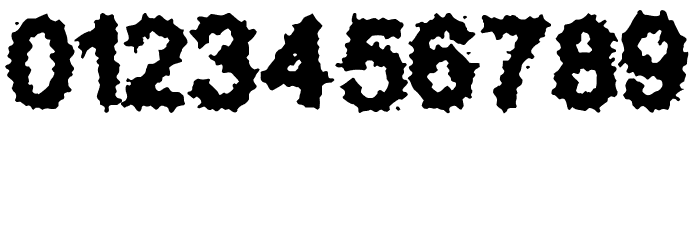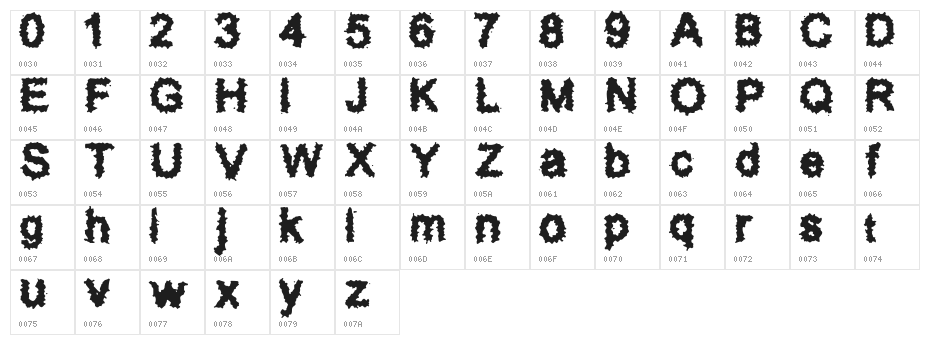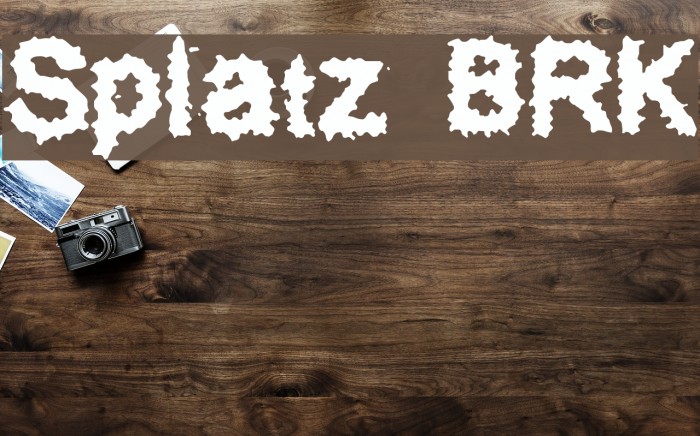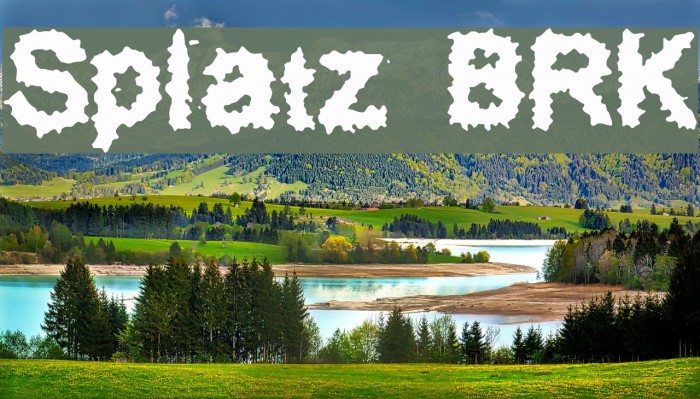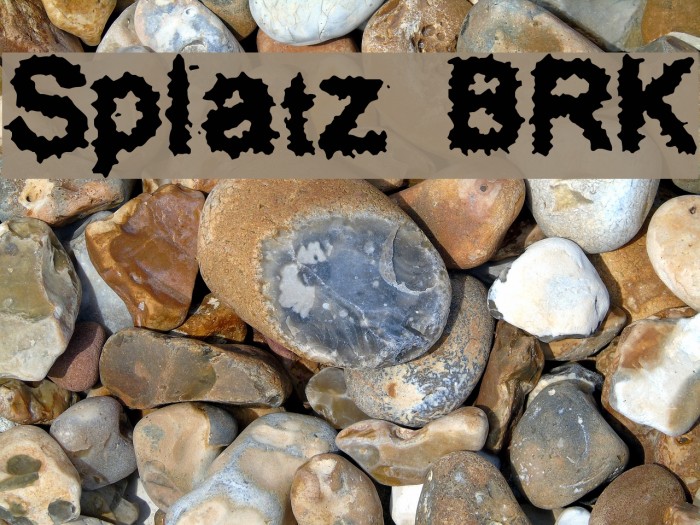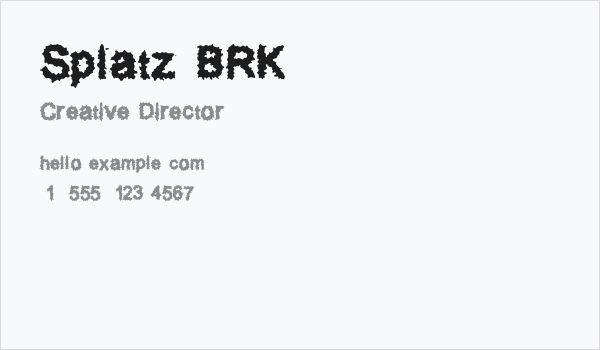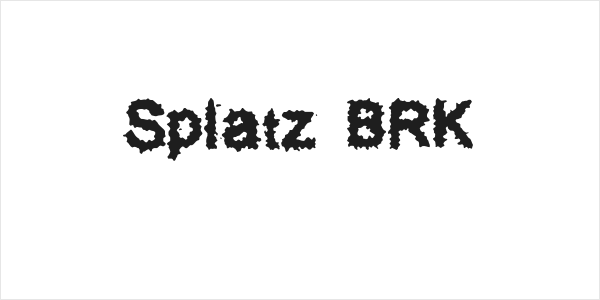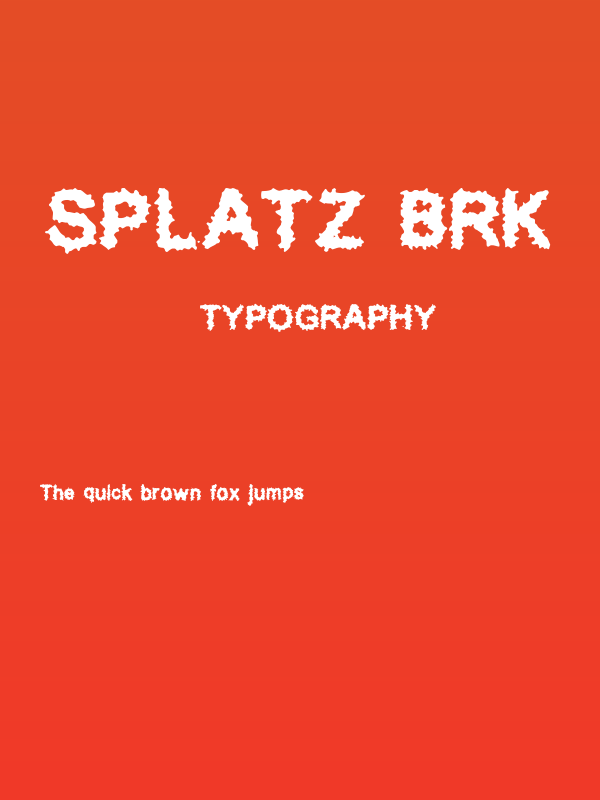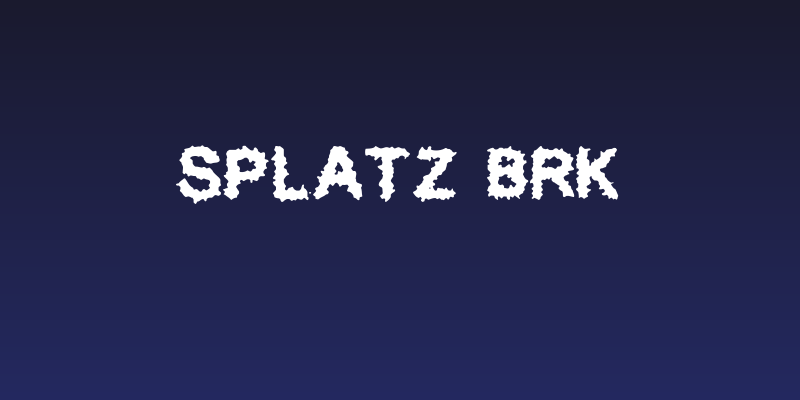
Splatz BRK Font
Splatz BRK Description
This font features a highly irregular and jagged design, reminiscent of splattered ink or paint. Each character is uniquely crafted with rough, uneven edges, giving it a dynamic and chaotic appearance. The bold, thick strokes ensure high visibility and make a strong visual impact. Its distinctive style is eye-catching and unconventional, making it suitable for creative and artistic projects. The font maintains consistent sizing across characters, ensuring readability despite its wild design. It is ideal for use in contexts where a bold statement is desired, such as posters, album covers, or themed events.
| Proposed Projects | Ideal for posters, album covers, themed events, and any project requiring a bold, artistic touch. |